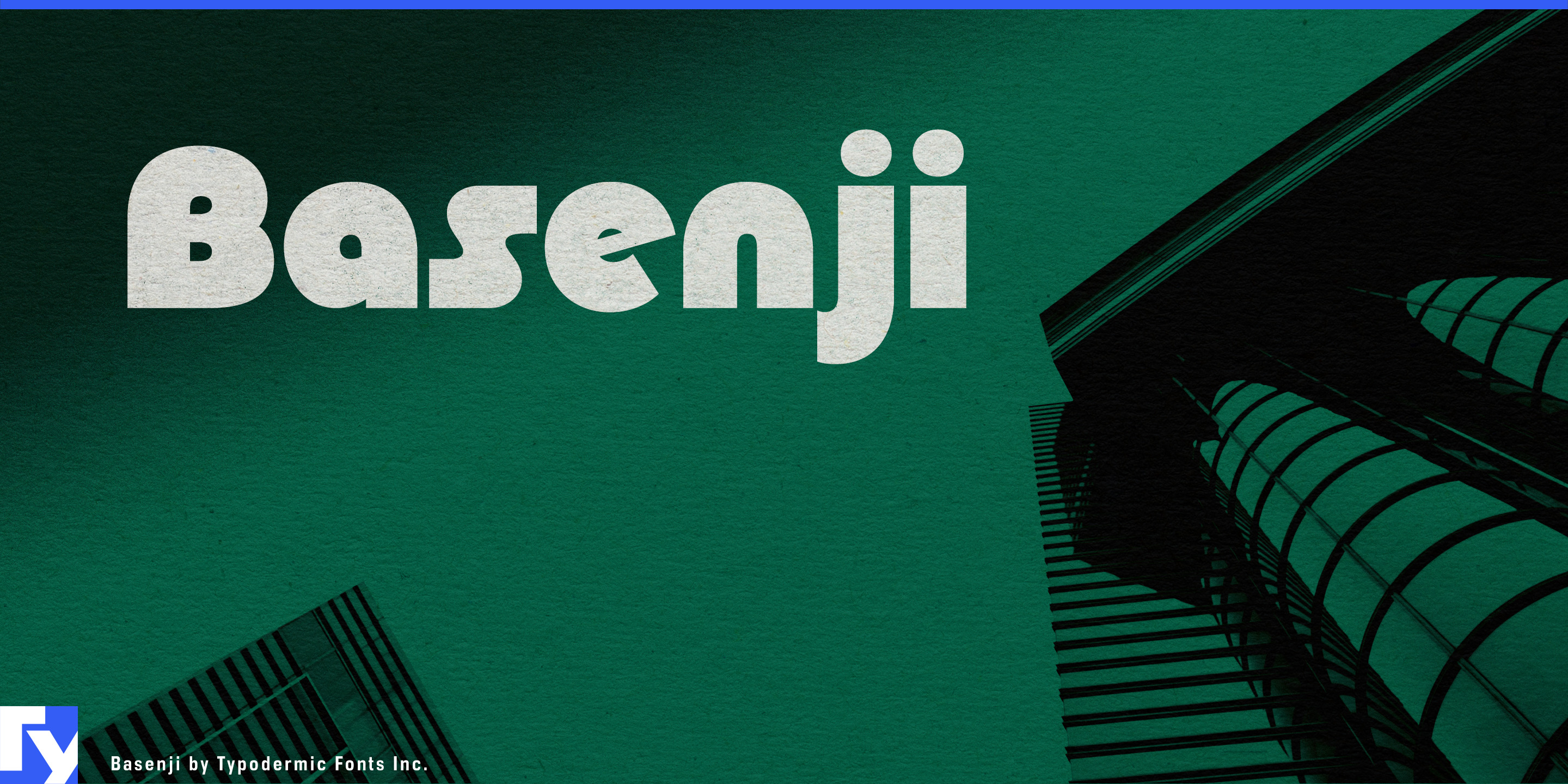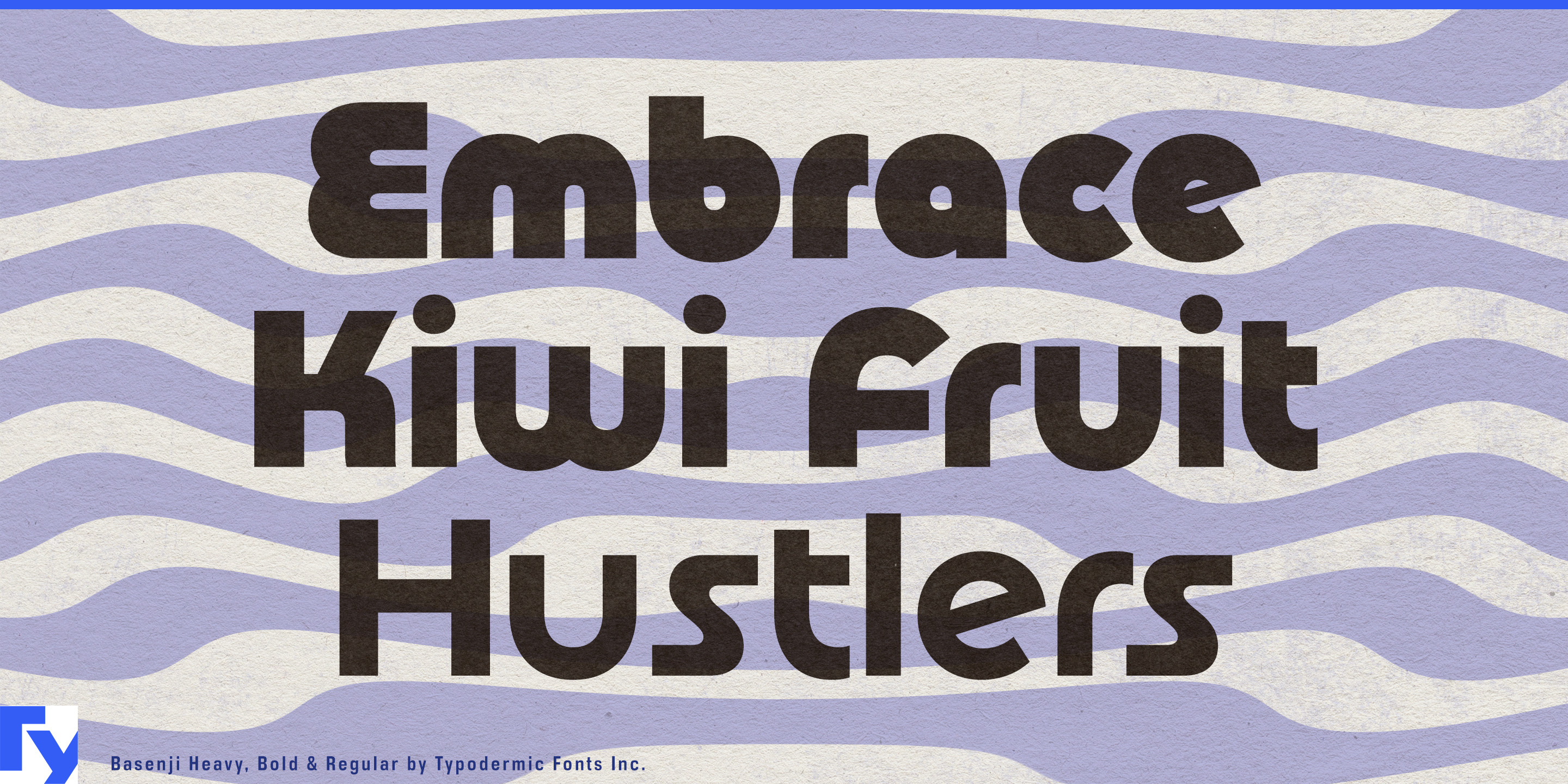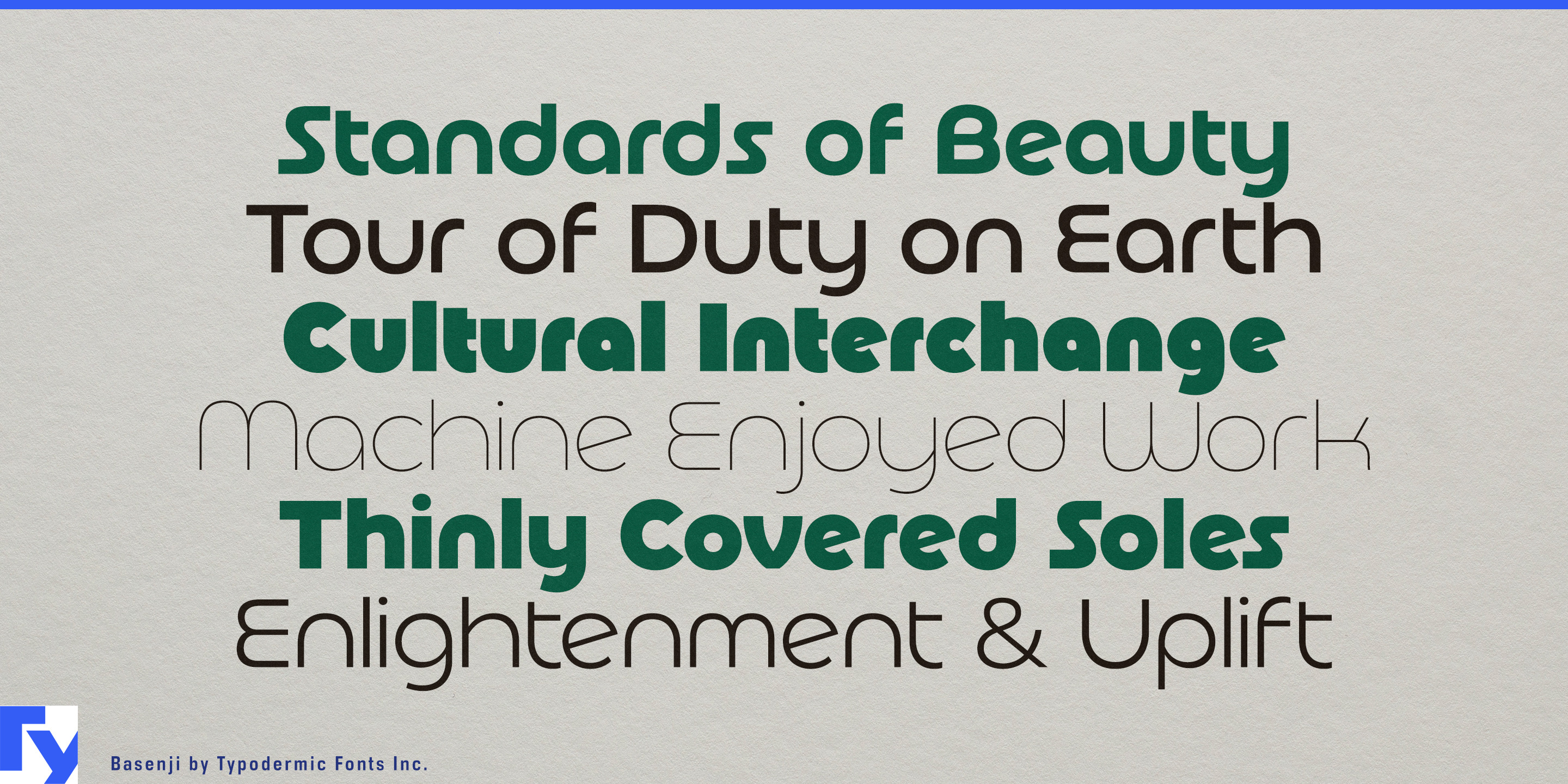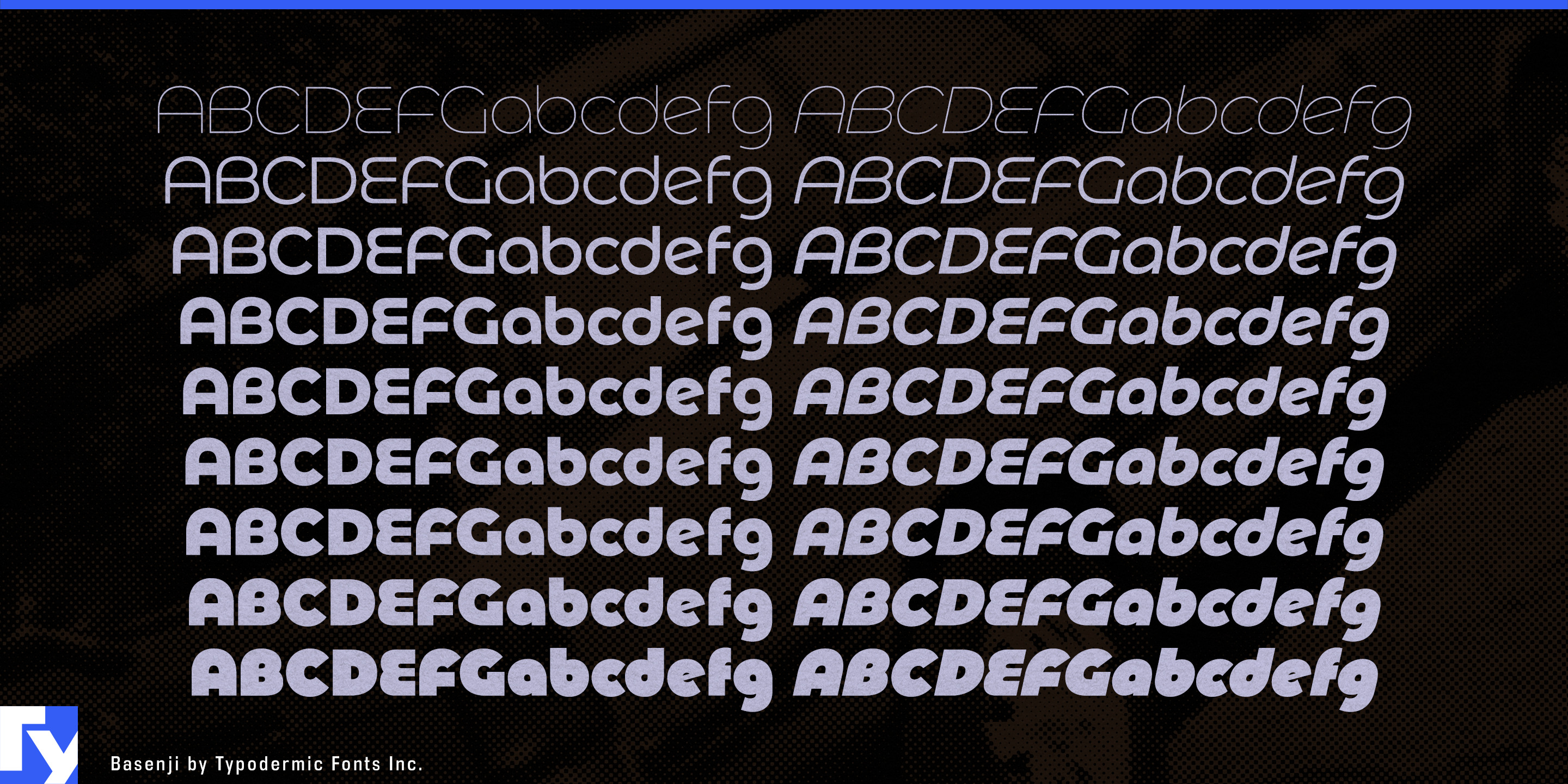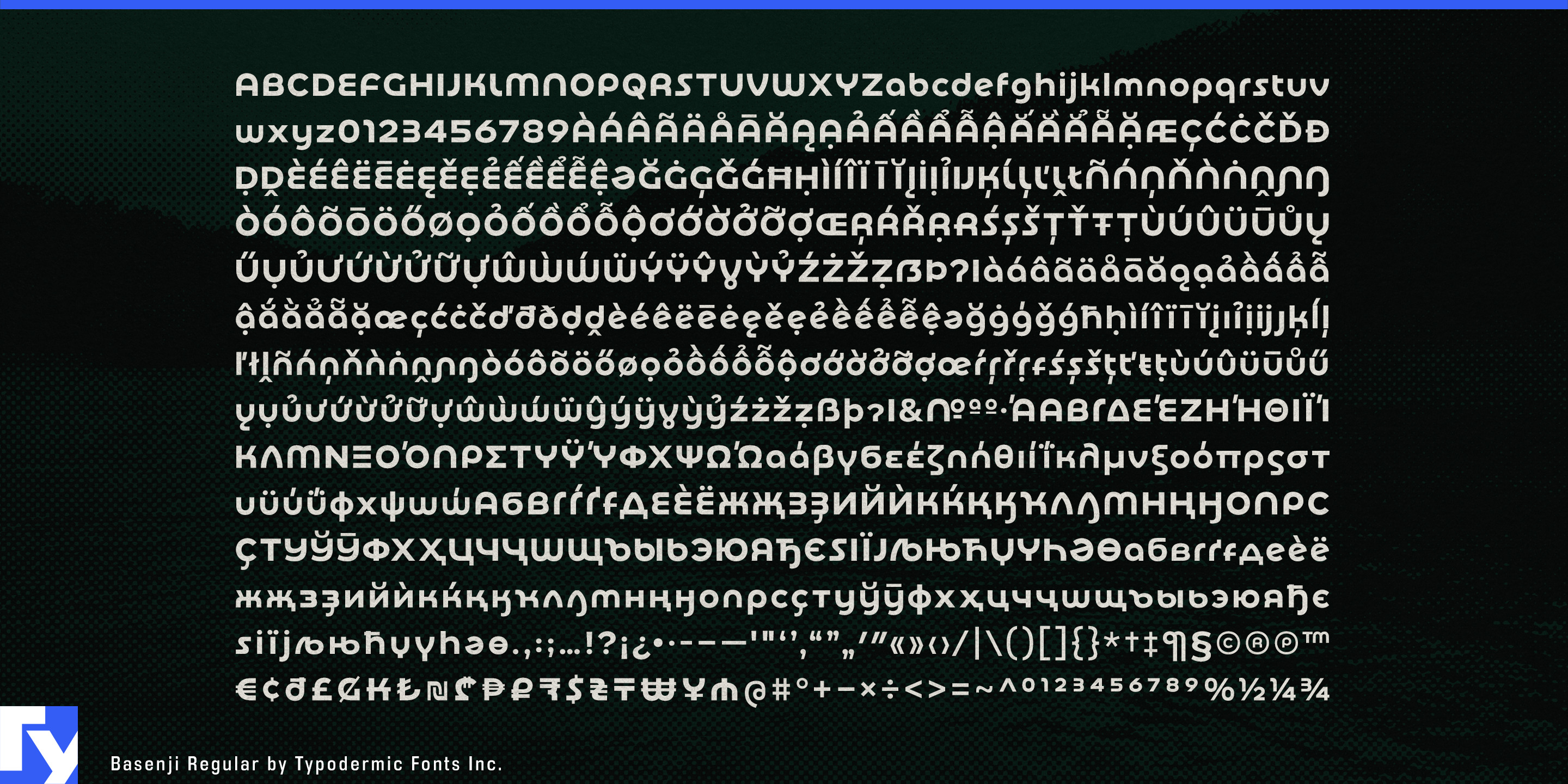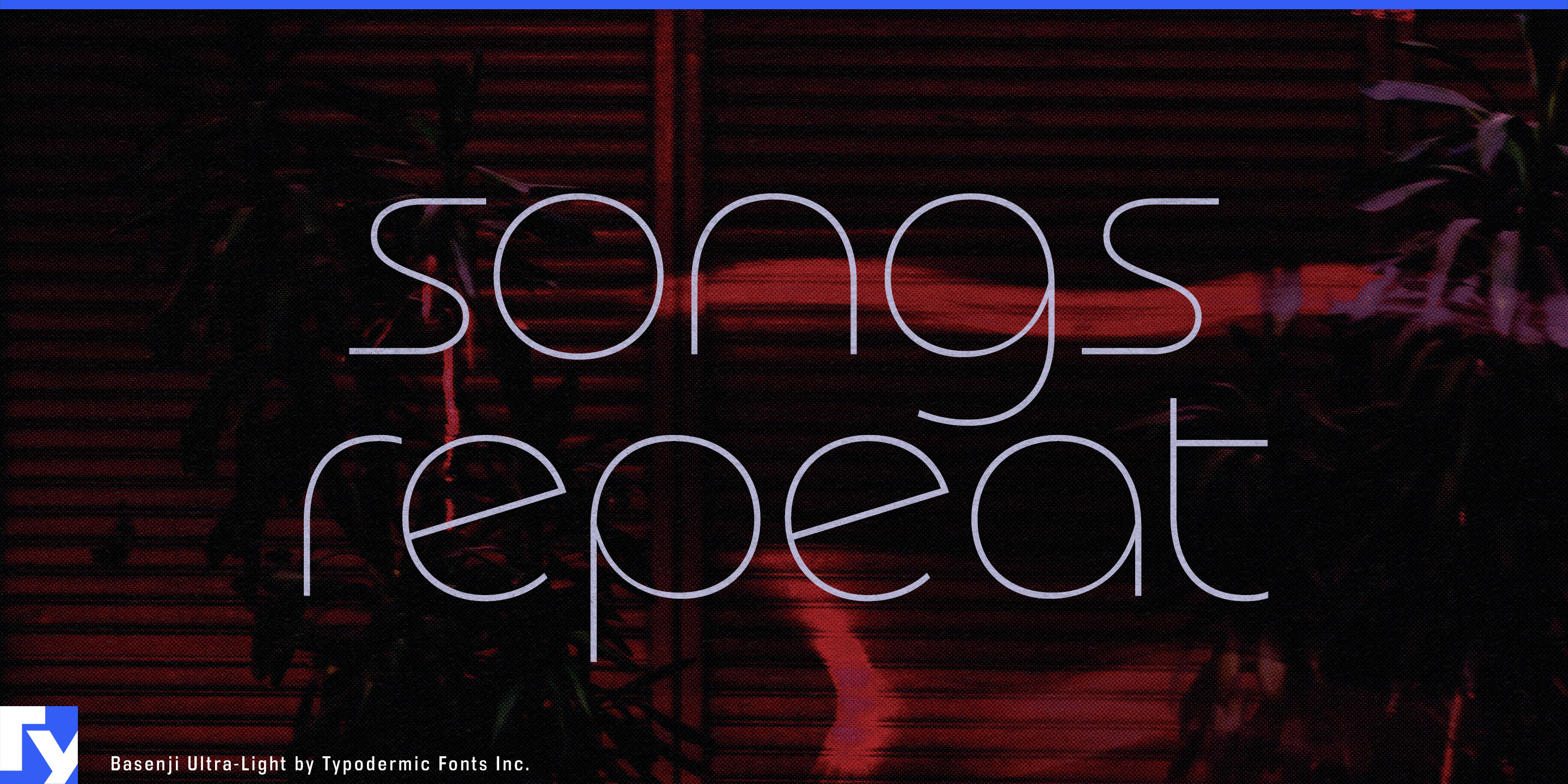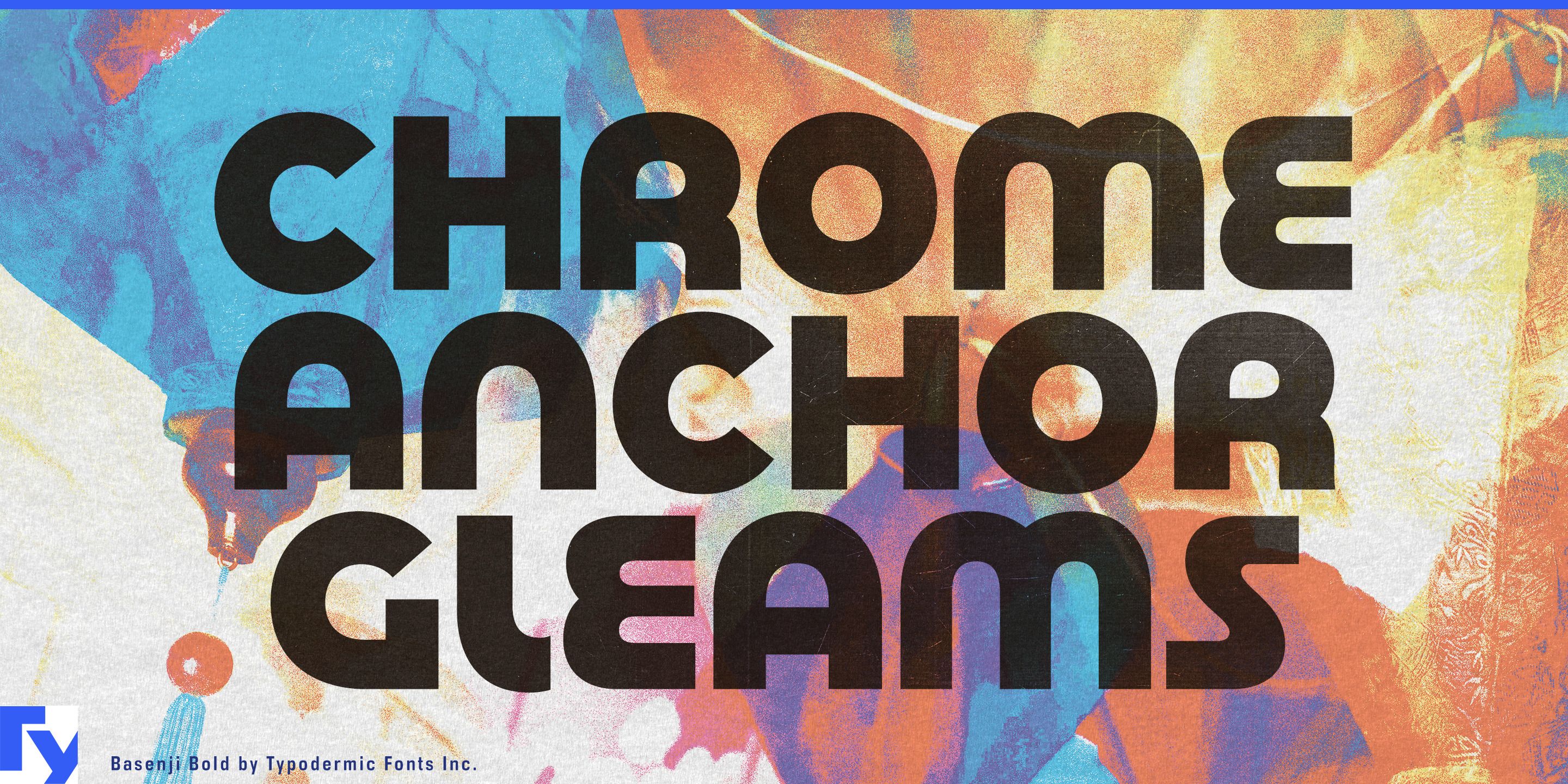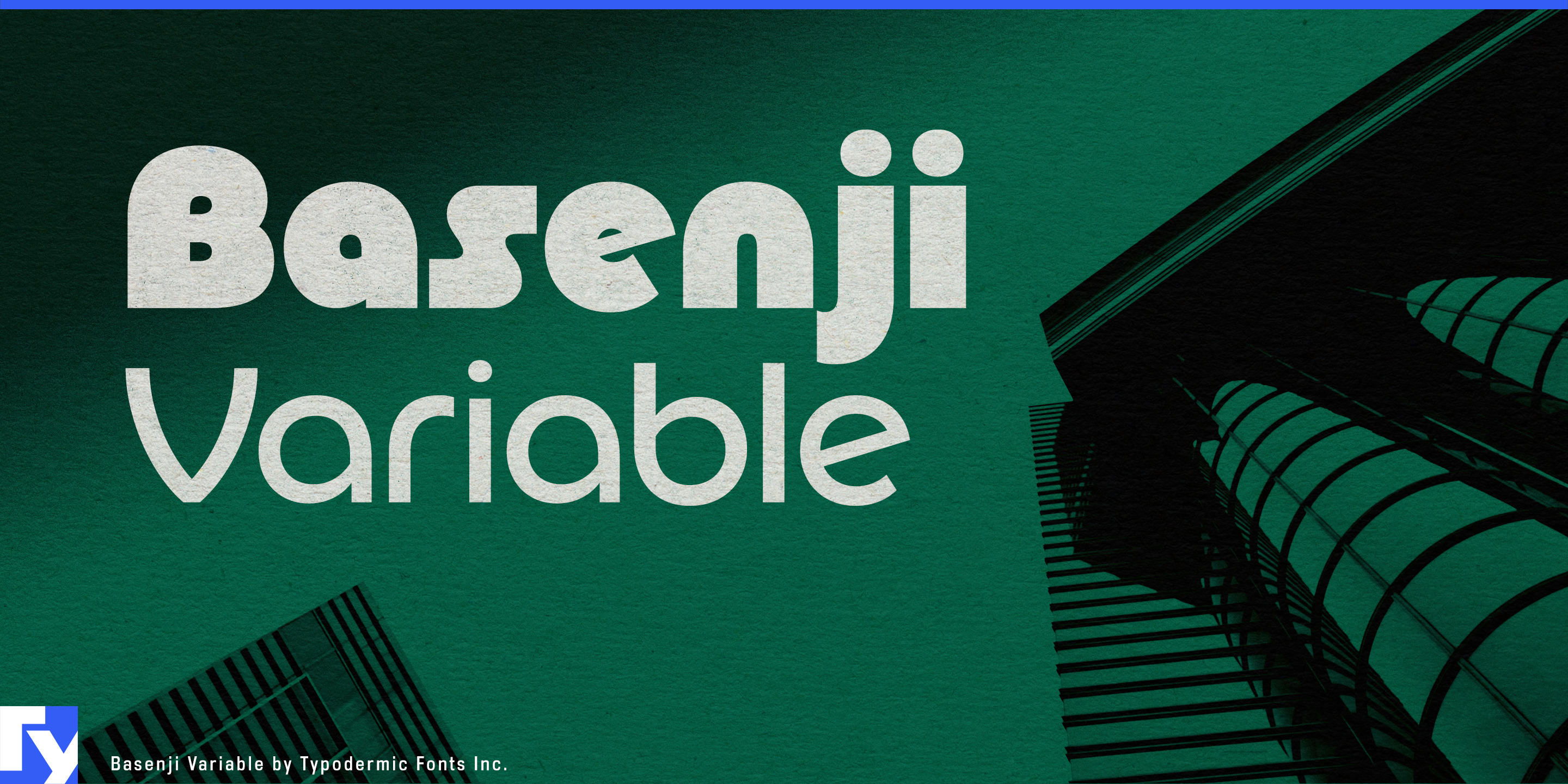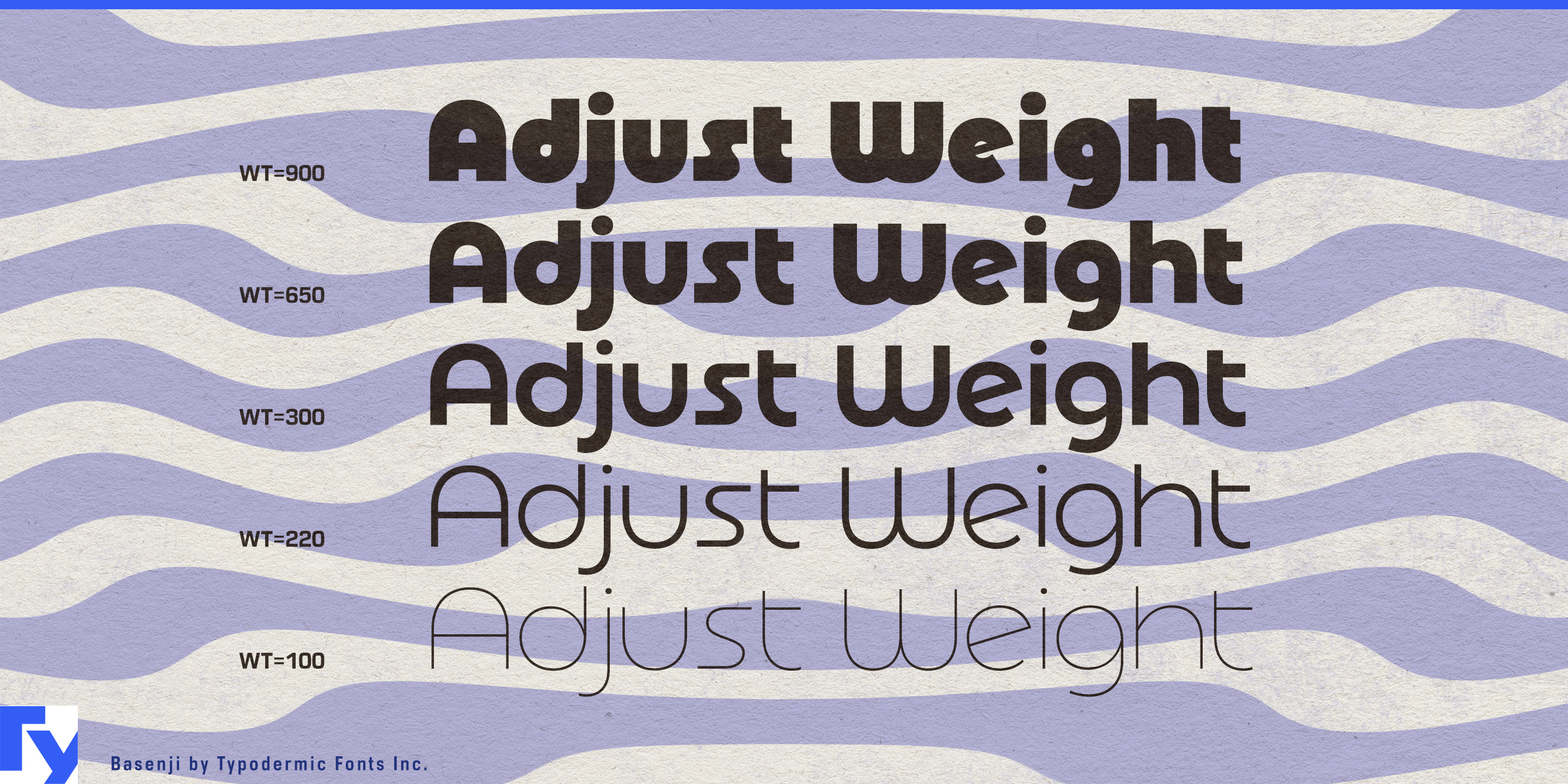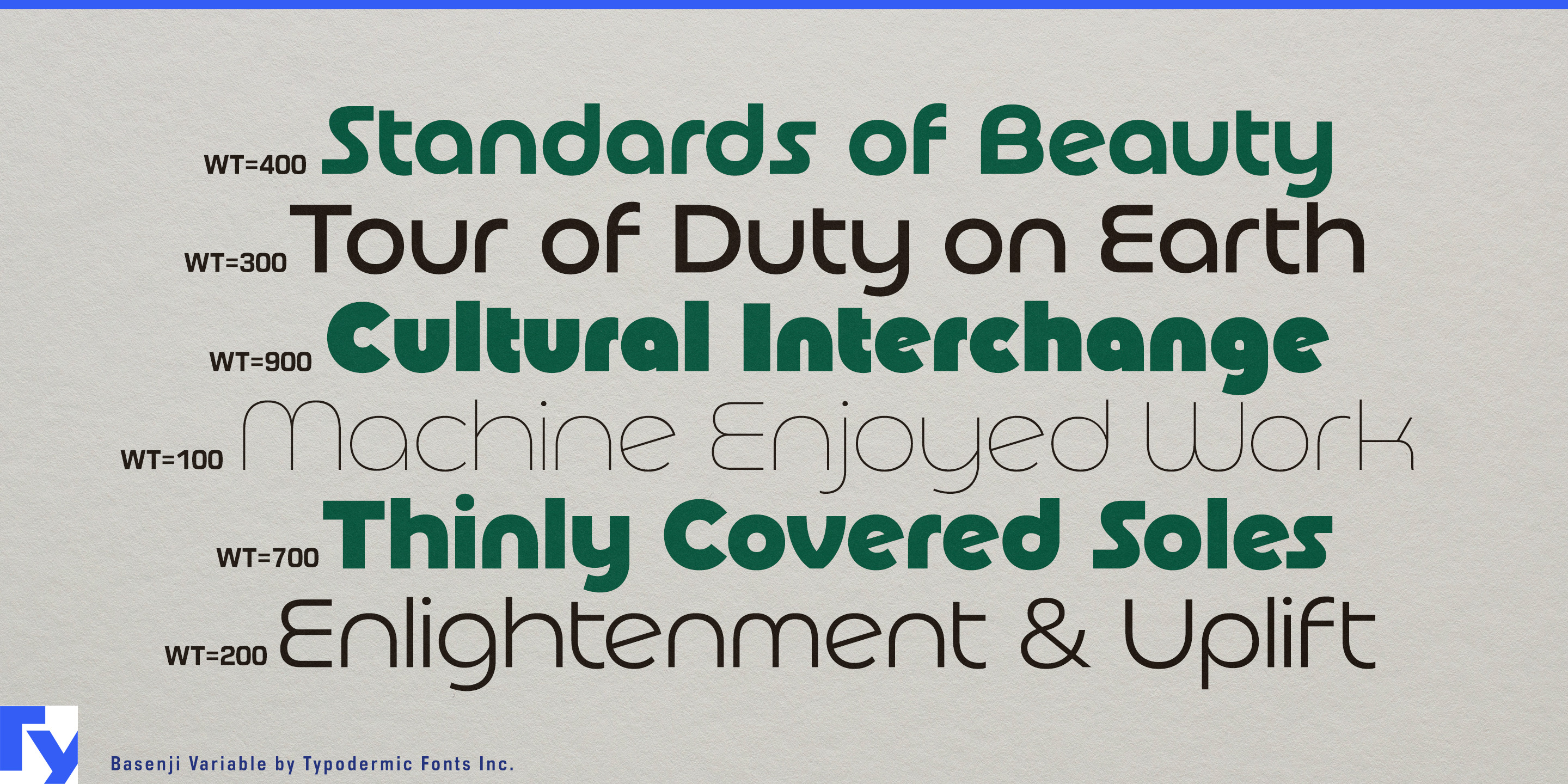
Basenji
Rounded geometric typography can bring warmth to a brand, but the available choices often pull too hard in one direction. Neutral geometric sans serifs can feel sterile; faithful 1970s revivals can make every application look like a period piece. Basenji occupies the useful space between them. Its softened modular forms retain the physical warmth of 1970s display lettering while toning down the quirks that would lock a contemporary identity into retro styling.
That makes Basenji particularly well suited to contemporary furniture and contract interiors. Modular sofas, reconfigurable lounge seating, curved benches, upholstered acoustic booths, rounded dining chairs, sculptural side tables, storage systems, and decorative lighting share its combination of geometry and softness. Heavy styles can become almost object-like beside padded furniture and molded forms; lighter weights can carry collection names, showroom graphics, fabric campaigns, specification covers, design-fair displays, and architectural presentations with considerably less historical baggage.
Lifestyle hotels, private clubs, lobby lounges, all-day hotel cafés, resort restaurants, rooftop venues, and renovated motels offer another strong setting. Property names, restaurant identities, room categories, menus, event series, merchandise, pool graphics, and seasonal campaigns can range from quietly warm to overtly retro depending on the weight and treatment.
Basenji also suits domestic technology designed to live visibly among furniture. Air purifiers, humidifiers, countertop coffee machines, compact speakers, turntables, tabletop radios, fans, smart lighting, clocks, kettles, toasters, and other small appliances increasingly function as interior objects as much as equipment. Basenji can give model names, packaging, launch graphics, and retail displays a softer presence than conventional technology typography.
The same quality works across coordinated home collections such as tableware, ceramic planters, bathroom accessories, storage containers, colorful cookware, rugs, cushions, and shelving systems. It also translates naturally to adult food and beverage brands that want friendliness without rustic craft imagery or clinical wellness minimalism: plant drinks, cultured dairy, granola, nut butter, canned coffee, botanical sparkling drinks, natural sodas, premium juice, and colorful pantry ranges.
Basenji’s strength is controlled retro warmth. It can stay calm and contemporary in lighter styles, grow more sculptural as the weight increases, or lean further into its 1970s roots when a campaign wants more nostalgia. The historical flavor remains available without taking over the entire identity.